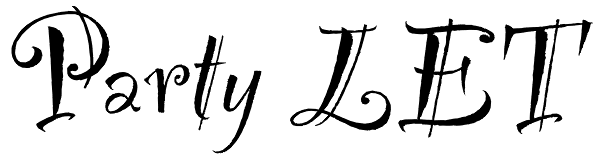
Party
It's party time! No better way to set the tone for wild abandon than with this intoxicating alphabet by English-based graphic designer, Carol Kemp. The capitals can be used alone, or as initials for a lower case that includes many alternates. Each...